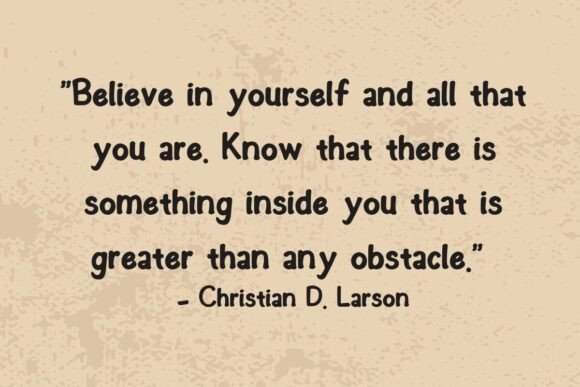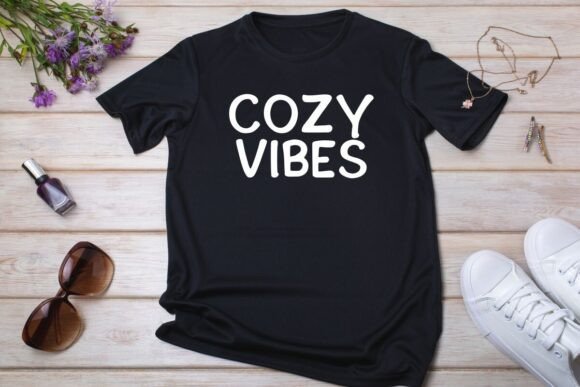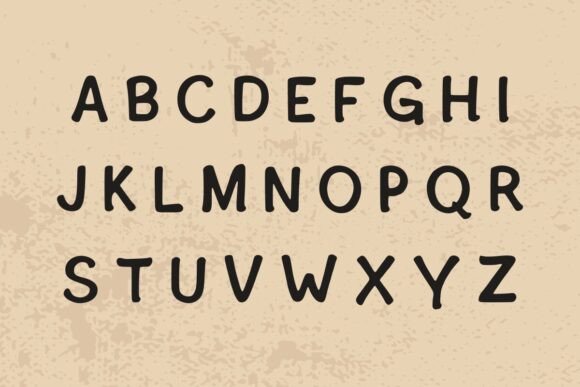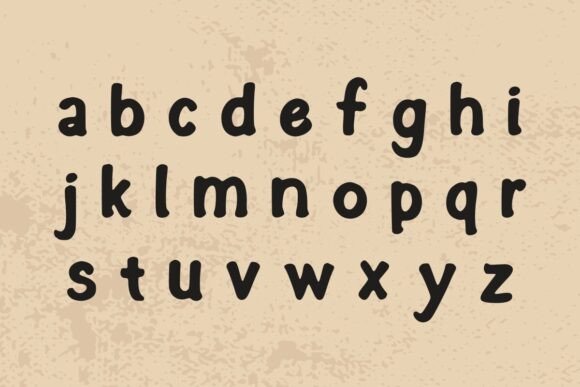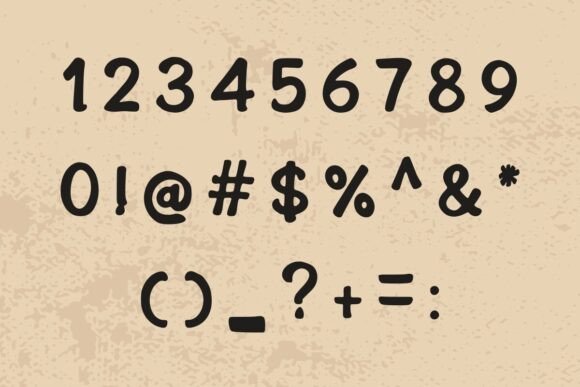
Introduction to Cozy Hand Font
Cozy Hand is a warm and inviting handwritten font that combines a playful charm with a casual elegance.
Featuring smooth, rounded strokes and a slightly imperfect touch, this font mimics natural handwriting, making it perfect for projects that need a friendly, personal feel Whether youโre designing greeting cards, branding elements, social media posts, or childrenโs book titles, Cozy Hand adds a sense of authenticity and warmth.
Key Features of Cozy Hand Font
Why Choose Cozy Hand Font?
Cozy Hand Font offers exceptional quality and versatility, making it a valuable addition to your design toolkit. Whether you’re creating for personal projects or commercial use, Cozy Hand Font delivers professional results.